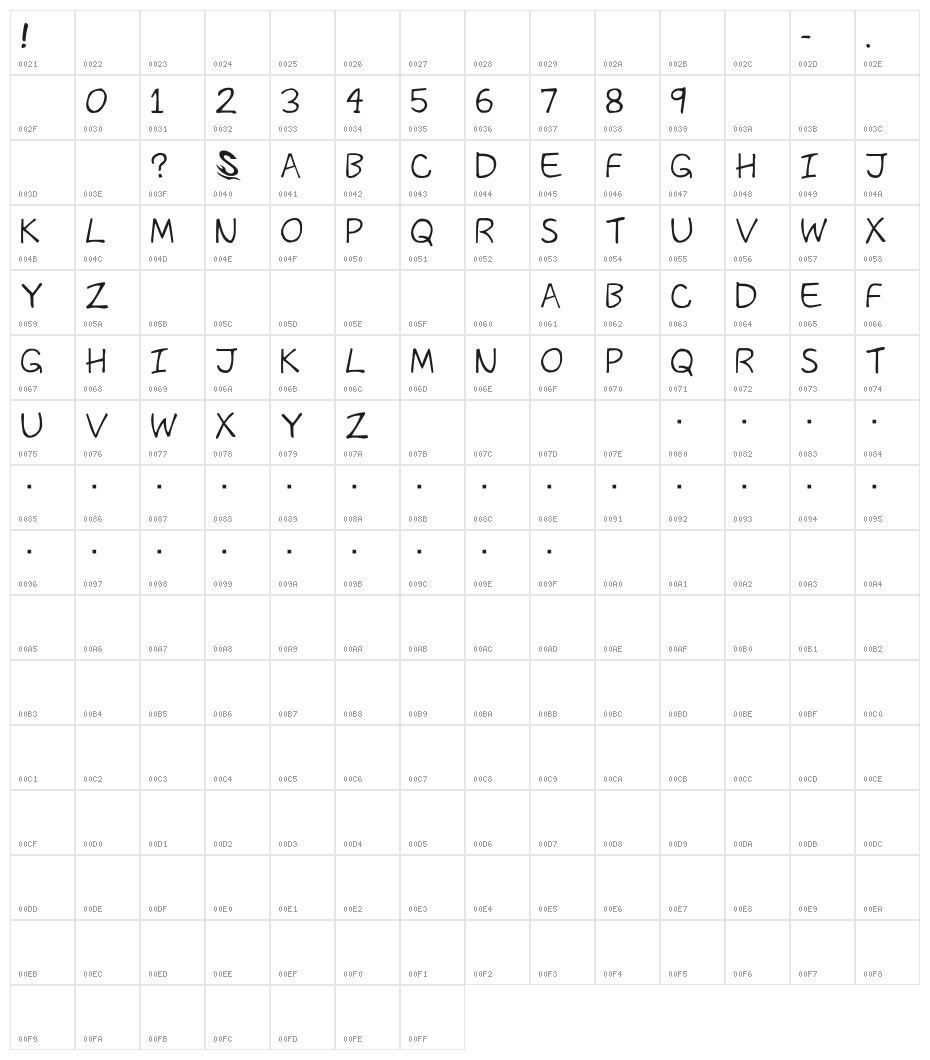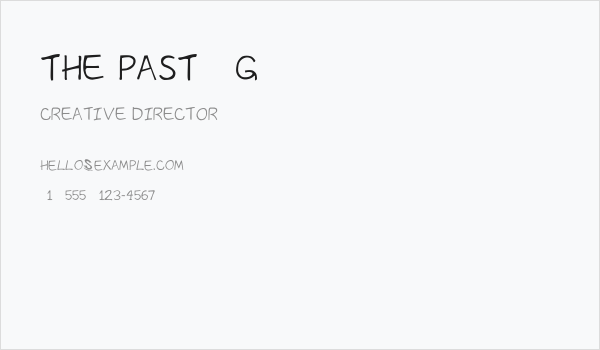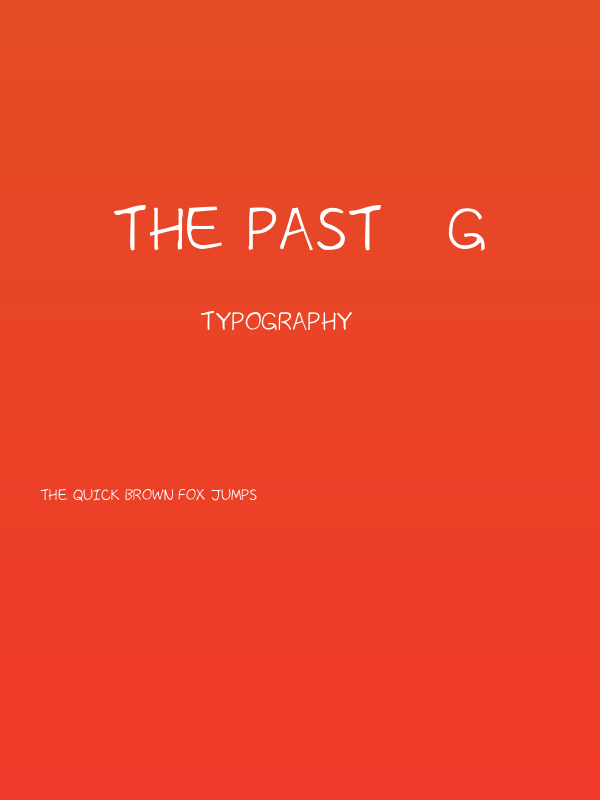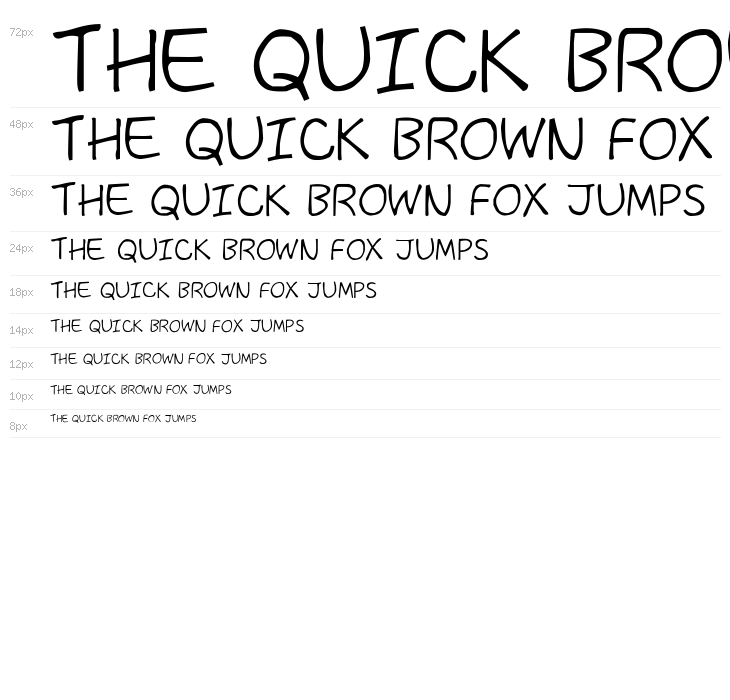
The Past__G Font
The Past__G Description
This font features a playful and informal handwritten style, characterized by its irregular and slightly whimsical letterforms. The strokes are uneven, giving it a casual and approachable appearance. The uppercase and lowercase letters maintain a consistent style, with a slight slant that adds to the dynamic feel. The numerals are bold and clear, matching the overall aesthetic. Special characters are included, maintaining the same playful style. This font is ideal for projects that require a personal touch or a friendly, informal vibe.
| Proposed Projects | Ideal for greeting cards, children's books, casual invitations, and playful branding. |